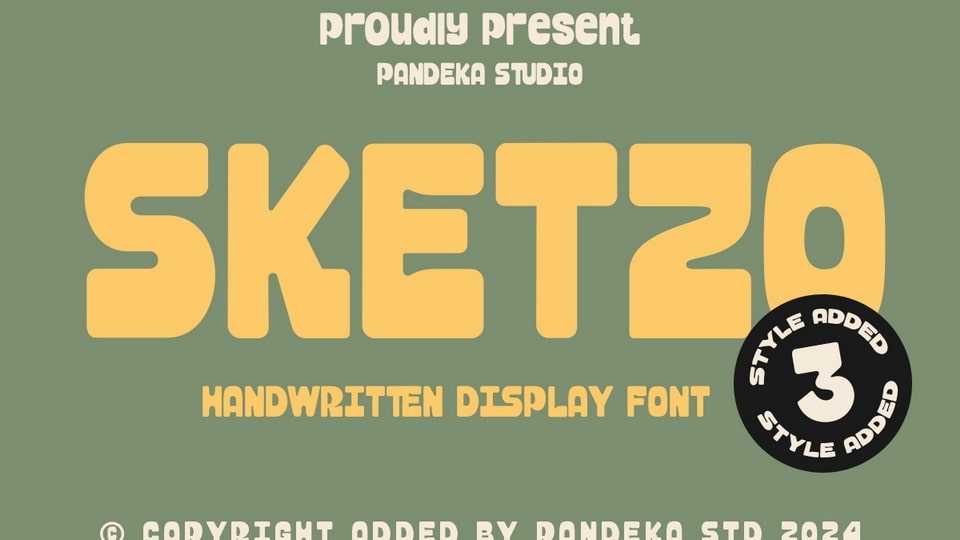
Download Sketzo font, a handwritten display typeface full of character and charm! This font comes with 3 styles that making it versatile and perfect for a variety of creative projects.